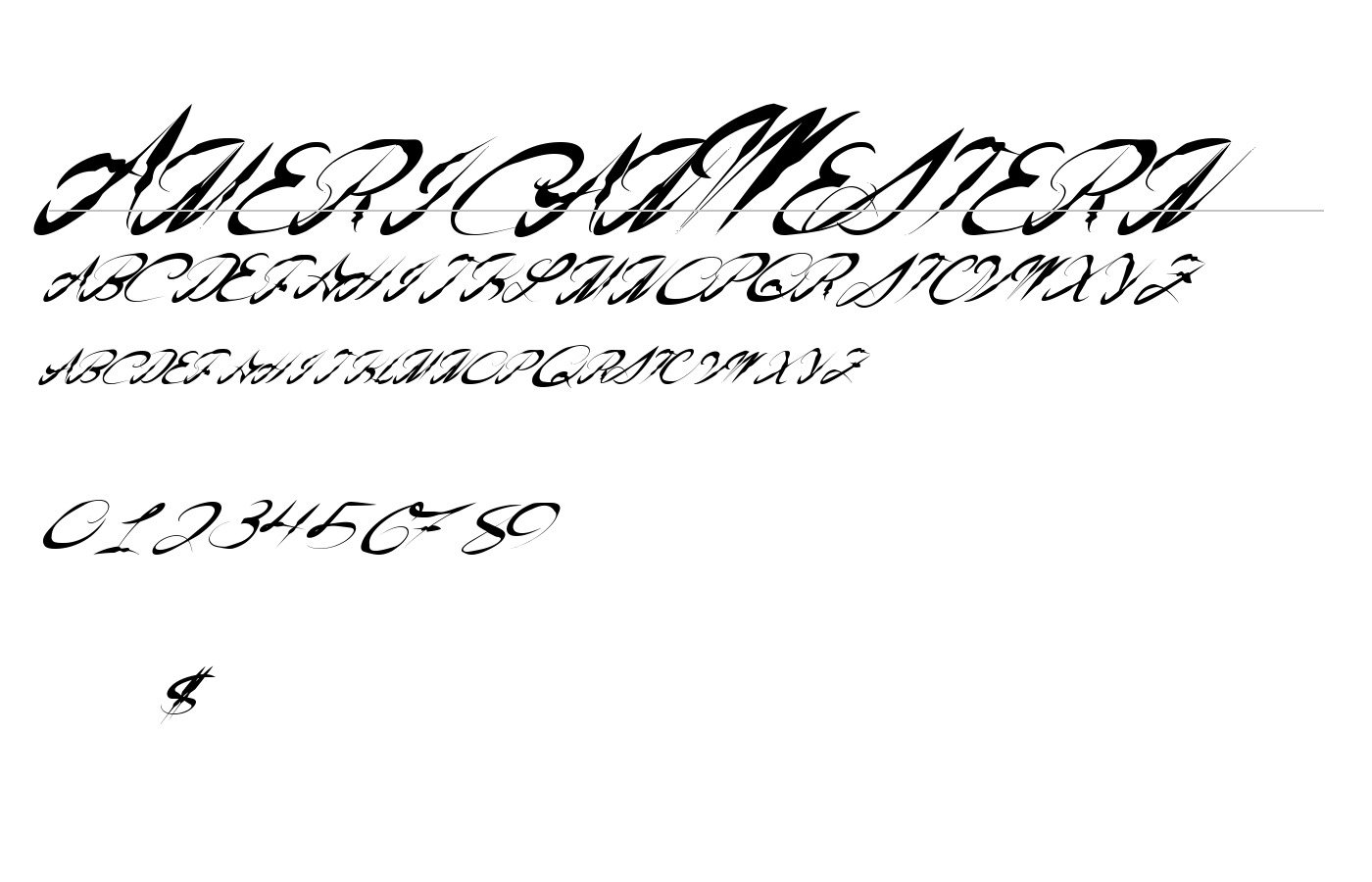
AmericanWestern is a highly stylized script font with a bold, dramatic flair and sharp, flowing strokes that evoke a vintage western or calligraphic tattoo feel. Its elaborate letterforms have a strong presence, making it perfect for eye-catching headlines, logos, or branding that aims to channel old American western charm with a modern, edgy twist. This font works best in decorative applications where uniqueness and flair are key, rather than for body text or long passages.
AmericanWestern Font
About AmericanWestern Font